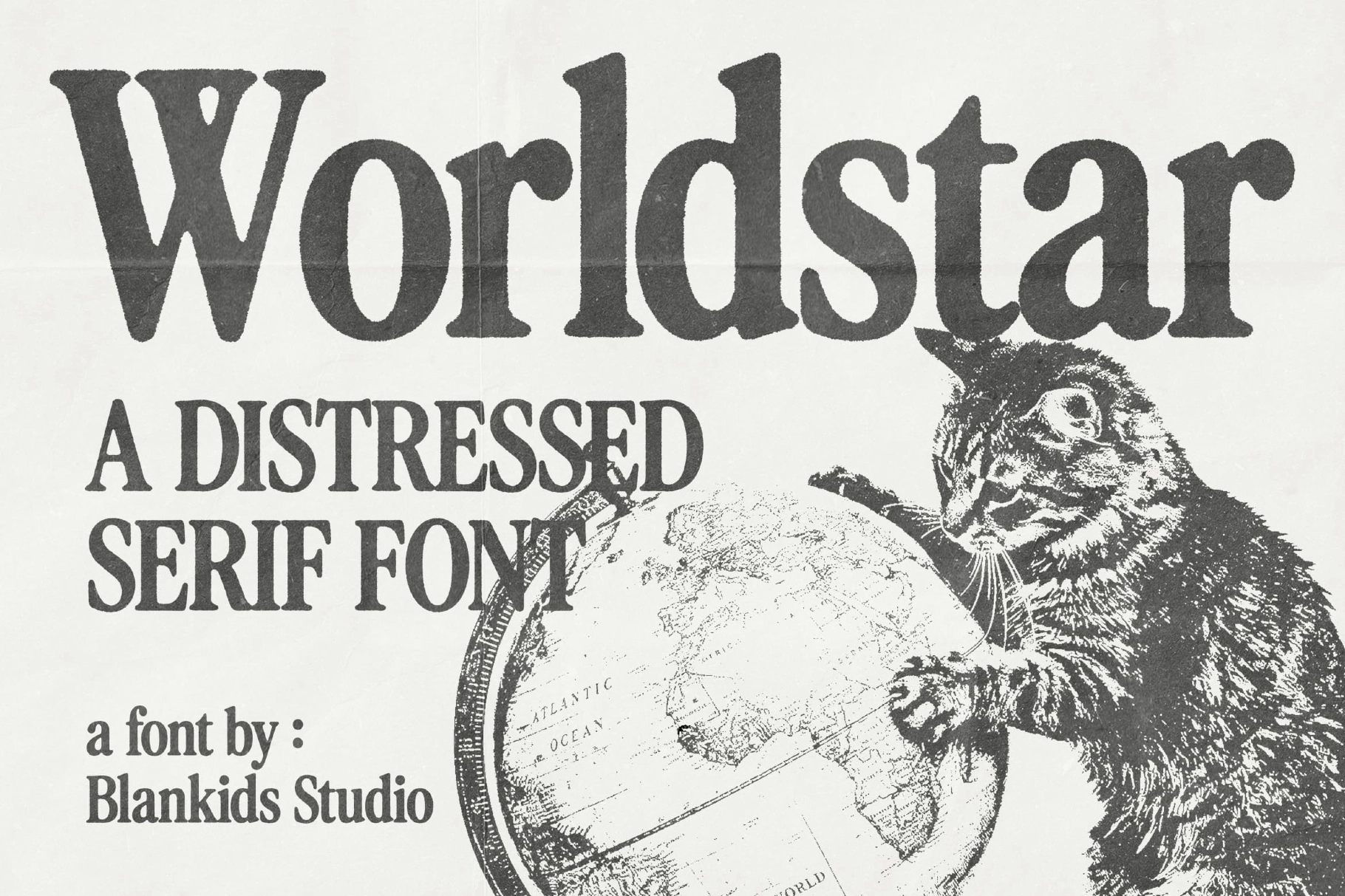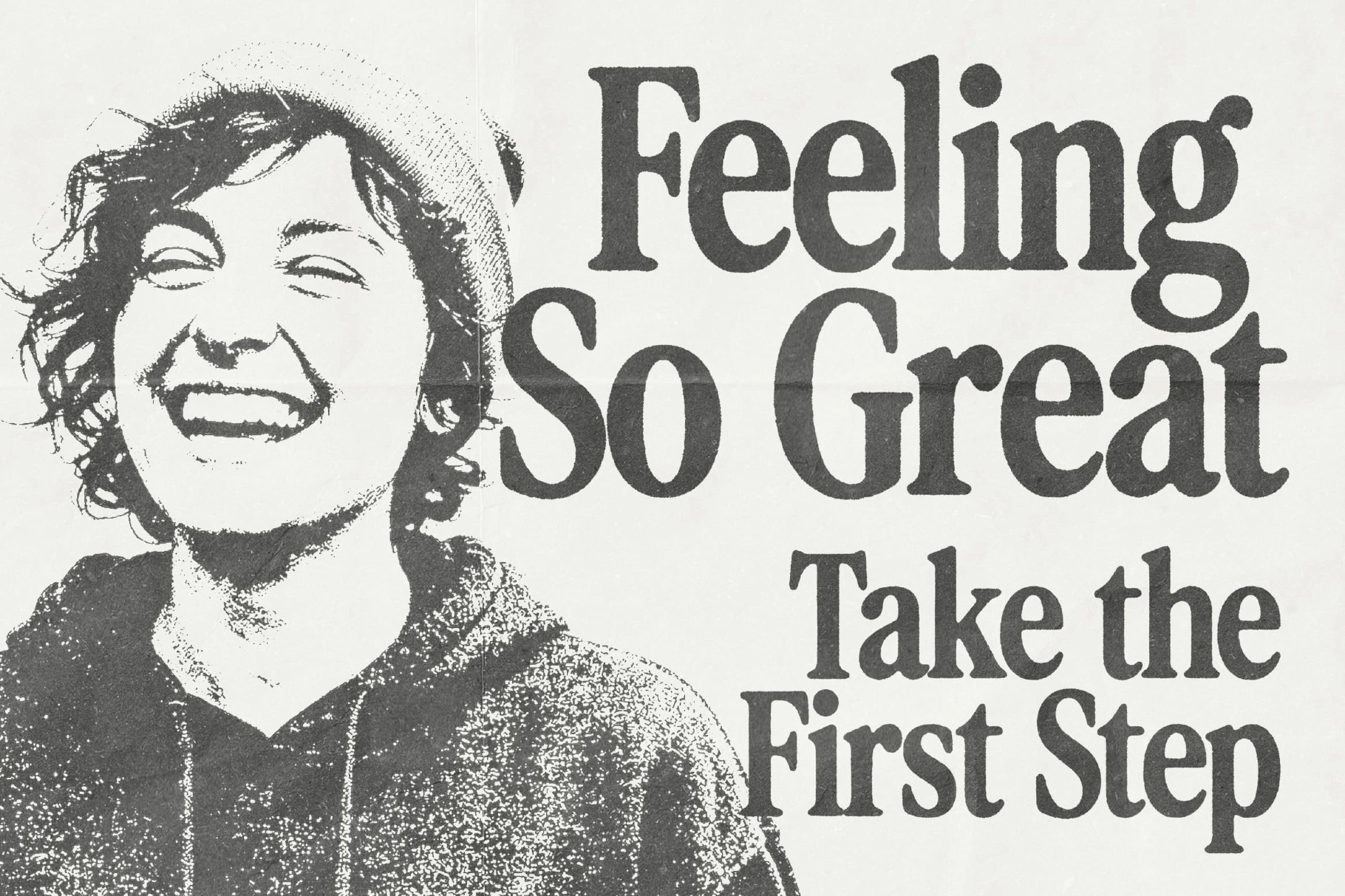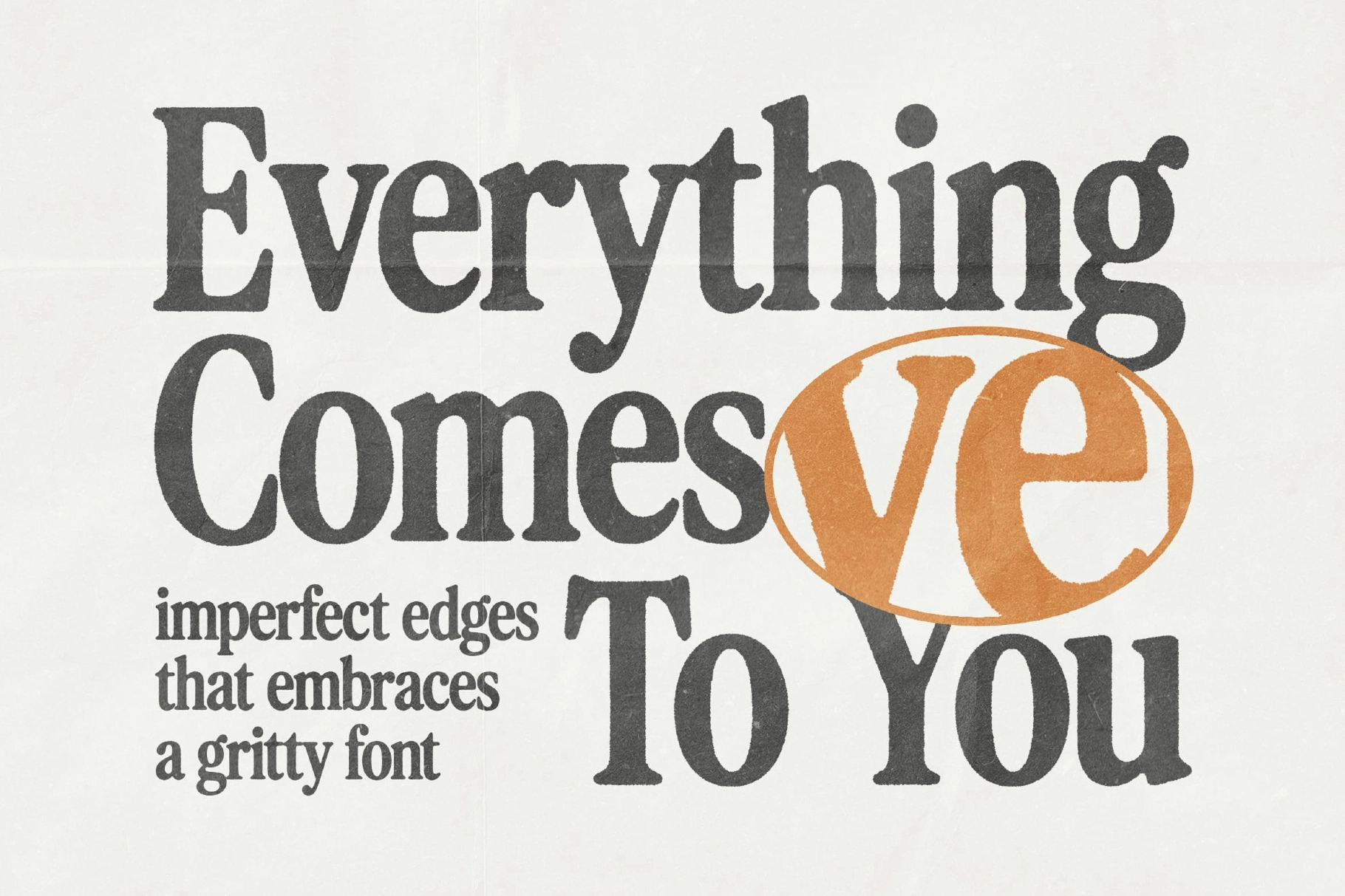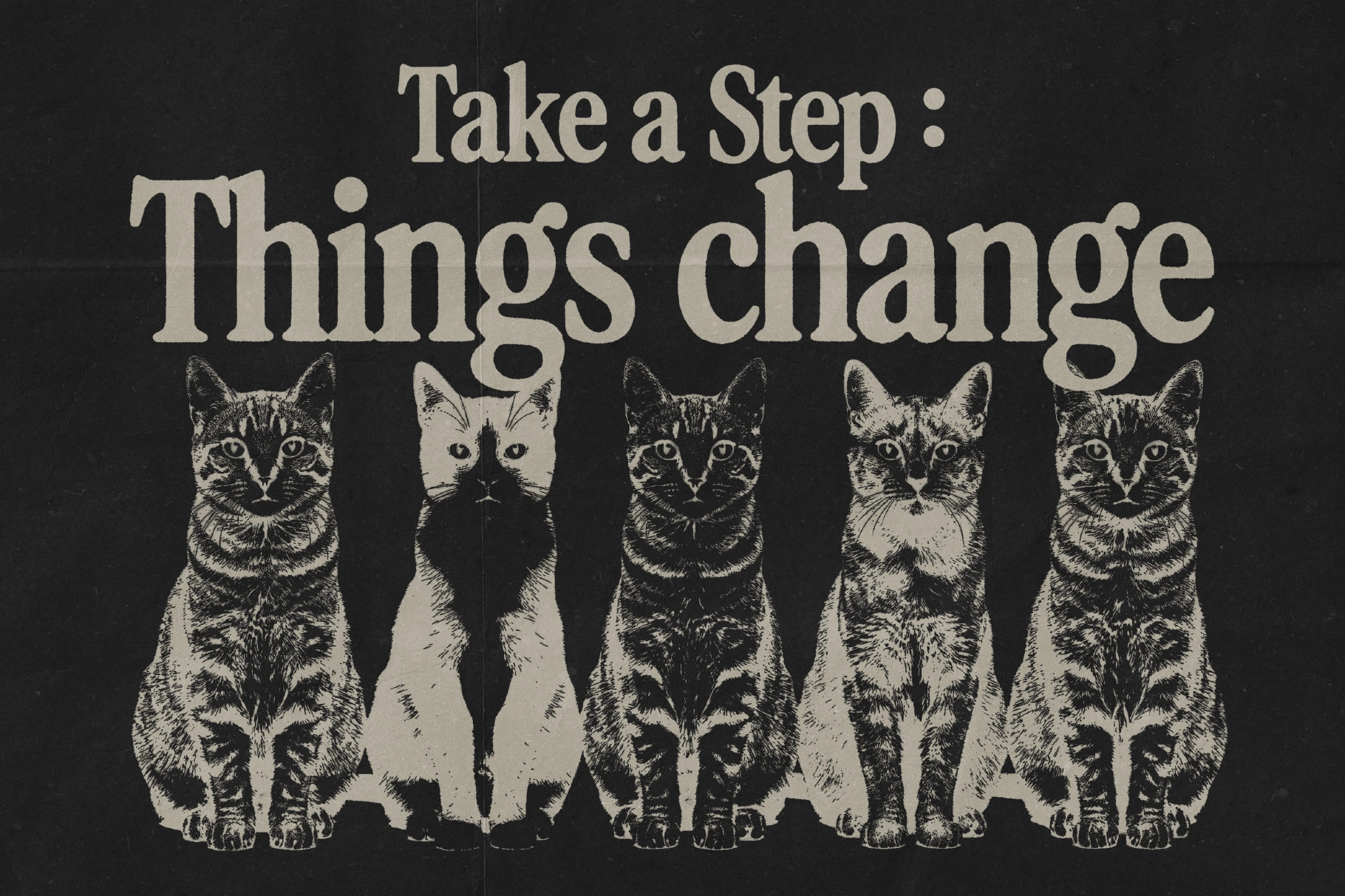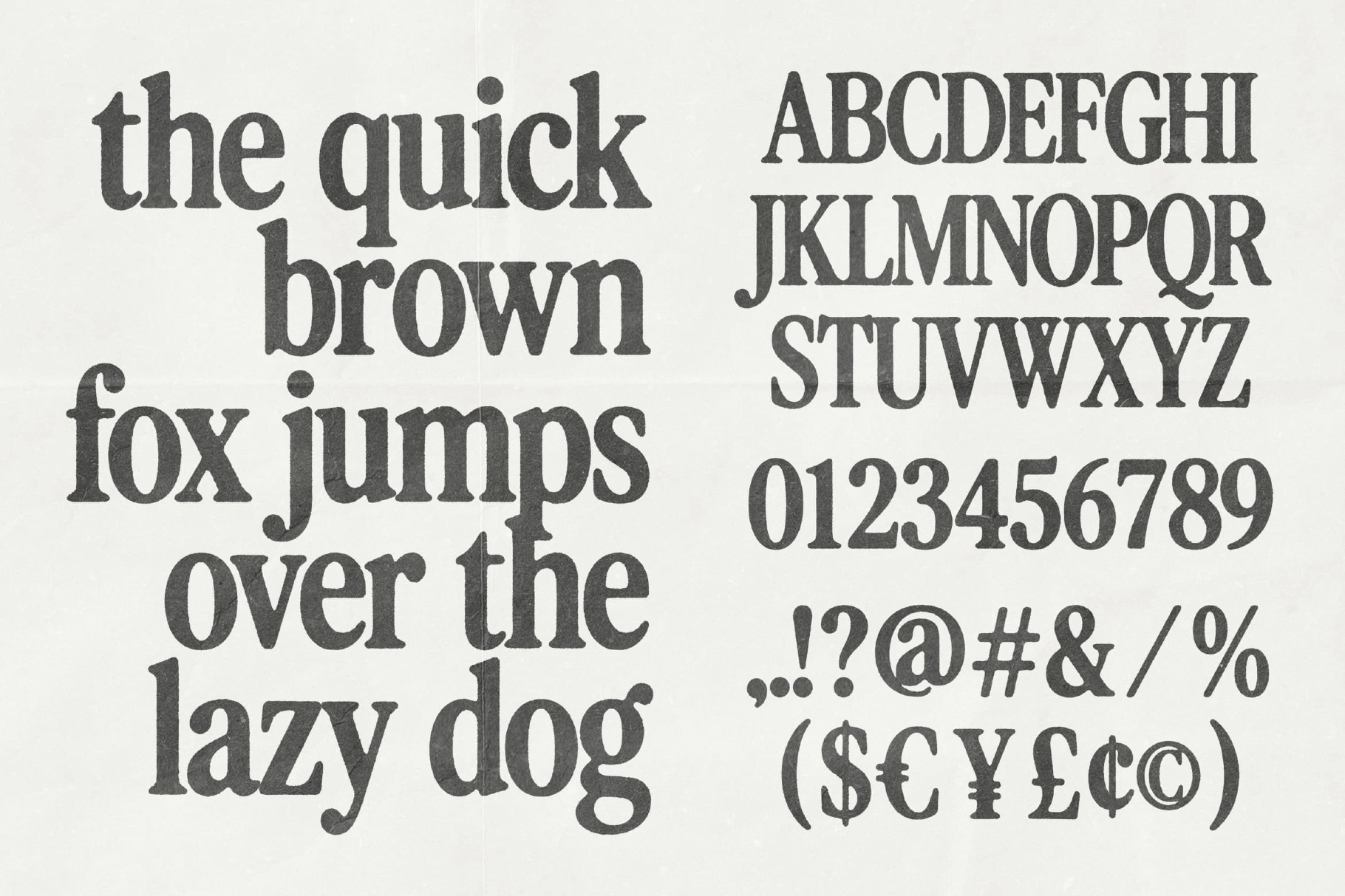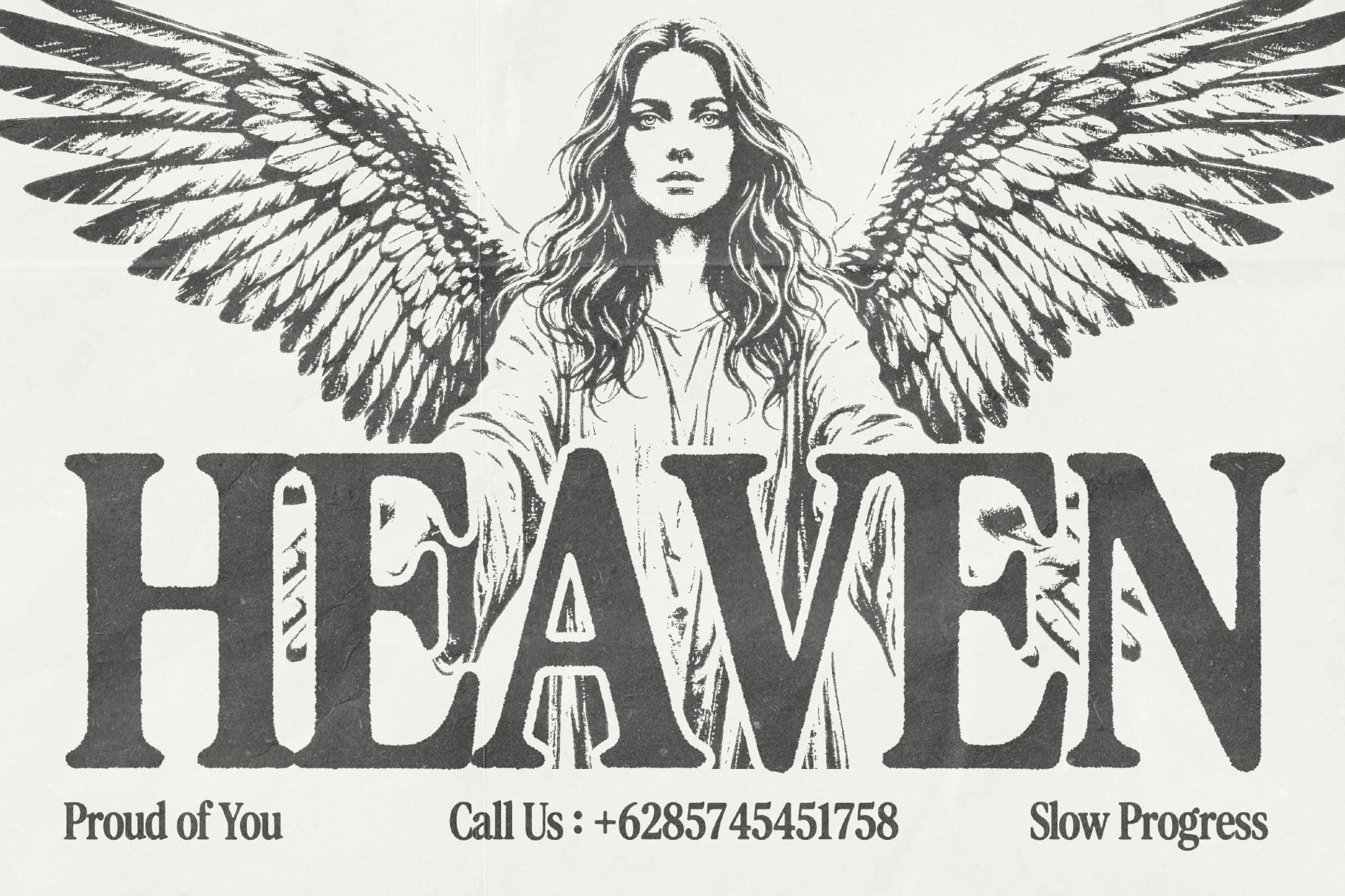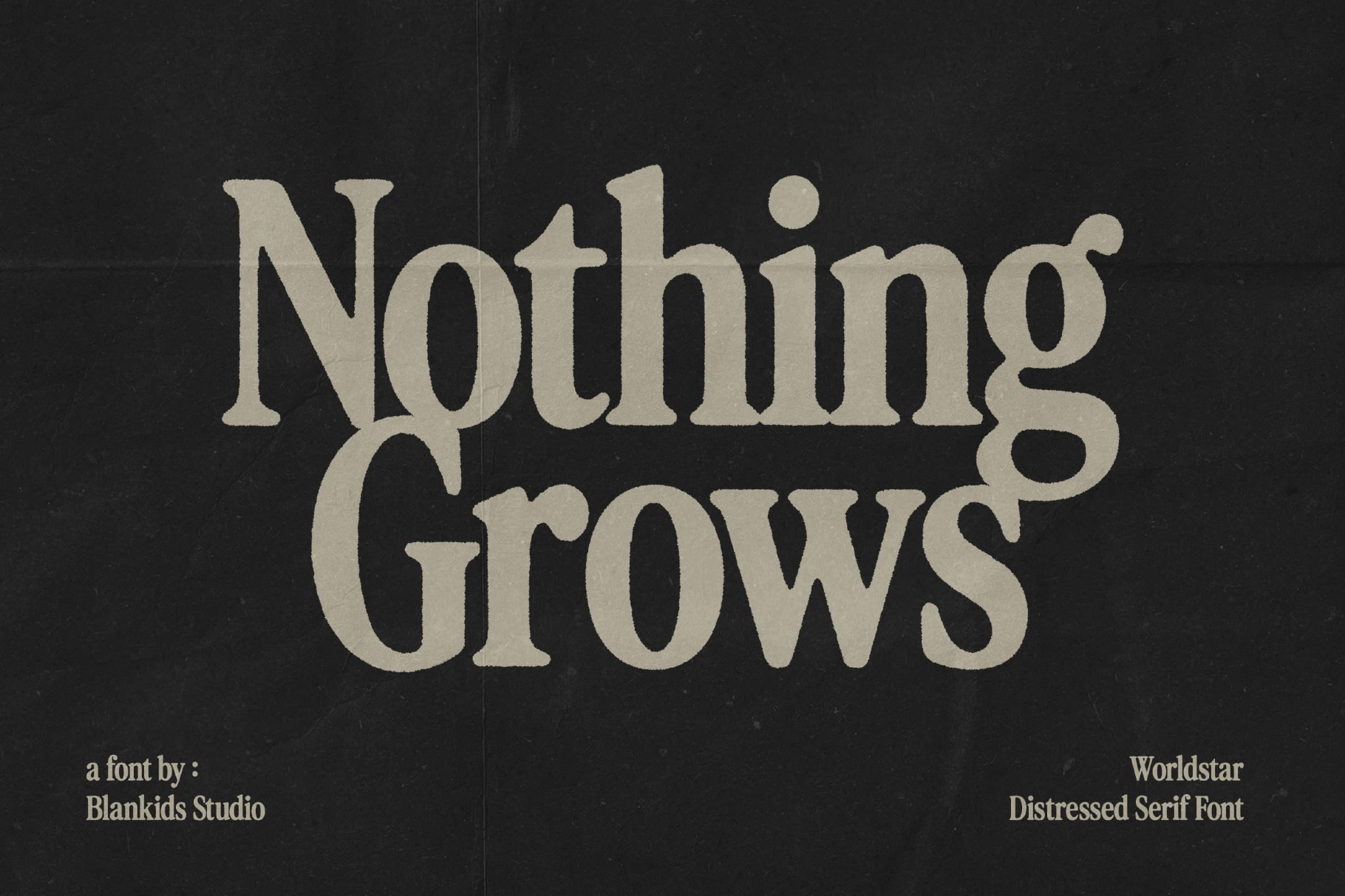
Worldstar – Vintage Distressed Serif Font
Worldstar – Vintage Distressed Serif Font is a bold and expressive typeface that blends classic serif structure with a rugged, timeworn texture. Its strong letterforms are enriched with rough, imperfect edges, creating an authentic aged-print aesthetic that feels both nostalgic and visually striking.
This Vintage Distressed Serif Font maintains excellent readability while introducing subtle irregularities that add depth and character. The balance between structure and texture makes it ideal for designs that need a vintage tone without sacrificing clarity.
Worldstar works beautifully across branding, editorial design, posters, packaging, book covers, apparel, and logo design, especially in projects that embrace retro, rustic, or grunge-inspired visuals. It delivers a handcrafted feel that enhances both print and digital compositions.